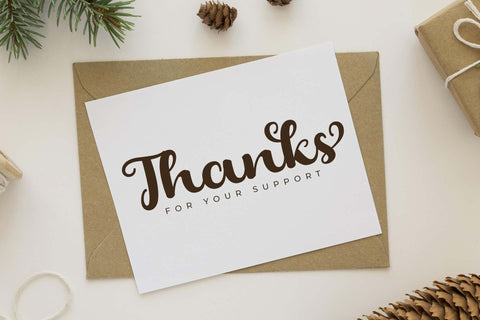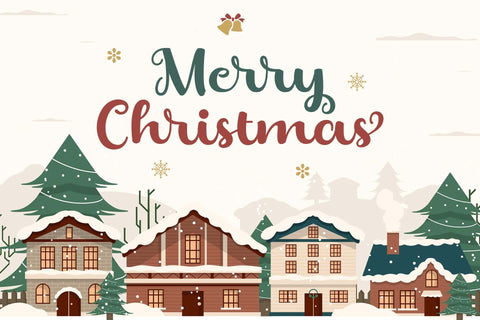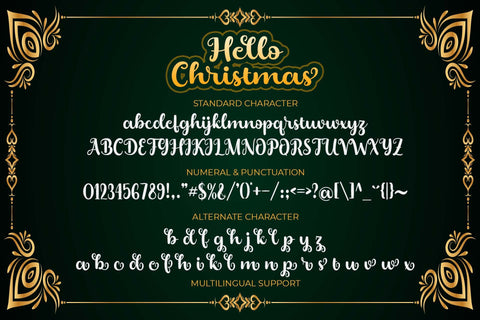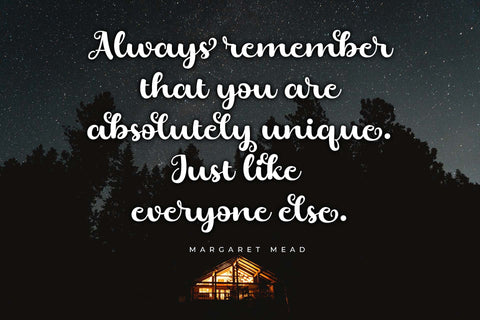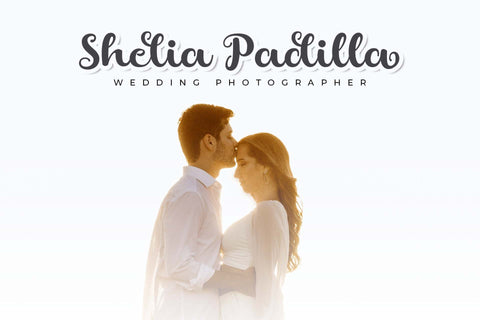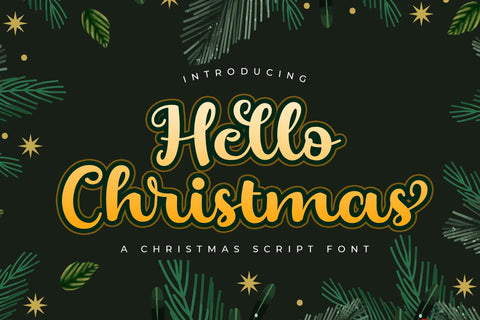
Hello Christmas
Hello Christmas is a stylish and flexible script font with christmas theme. Its lovely rhythm and captivating characters make it suitable for a wide range of design projects. Whether you use it on a greeting card or a t-shirt design, this typeface has all it takes to lure you in!